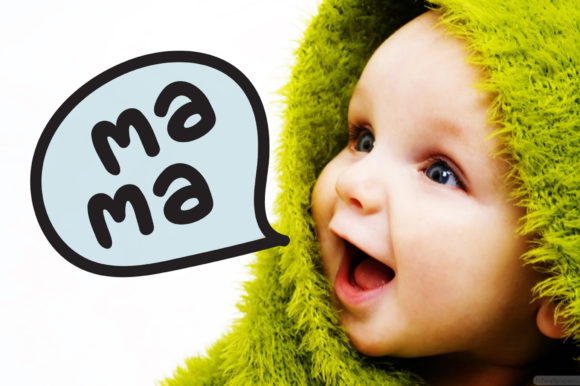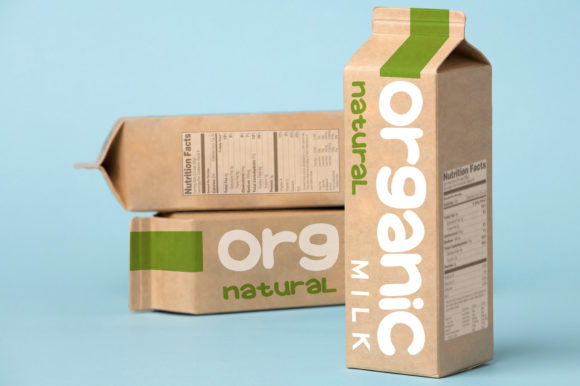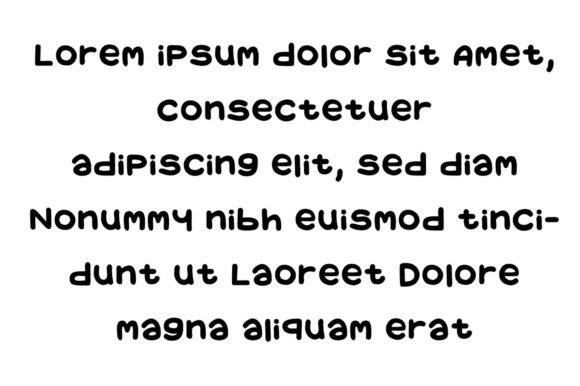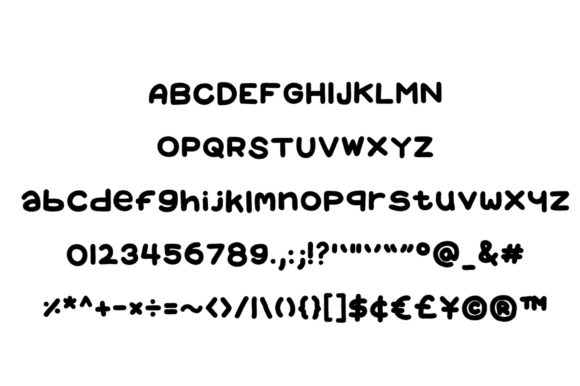
Chubby Font
About Chubby Font
Chubby is a sweet and friendly handwritten font. Its natural and unique style makes it incredibly fitting to a large pool of designs. The only limit is your imagination!